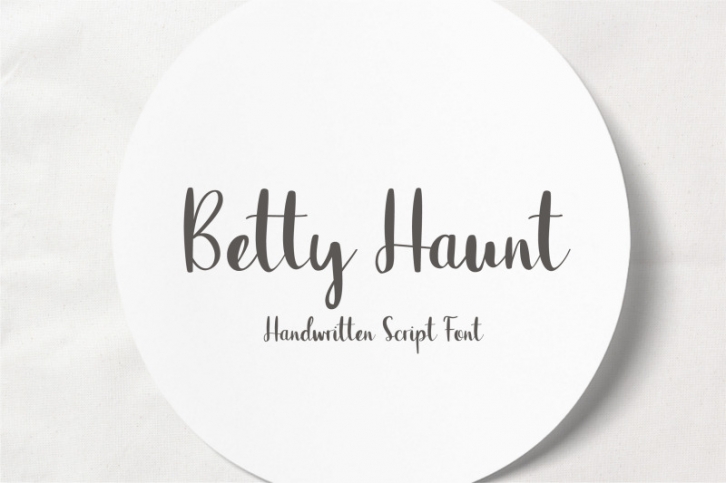
Betty Haunt is a smooth and bold handwritten font.
Simple but noticeable it is the perfect companion for your crafting projects. Great for t-shirt designs, invitations, cards, or labels!